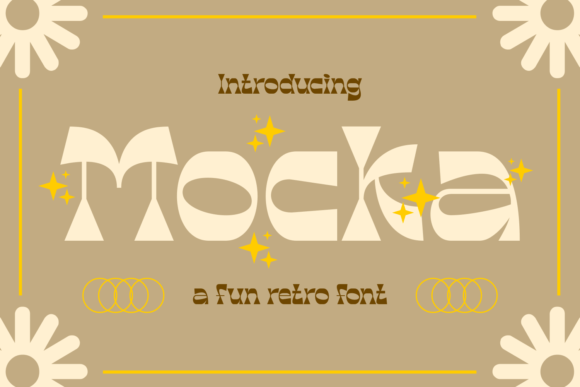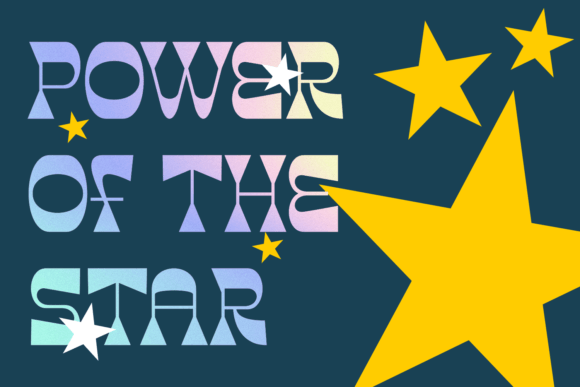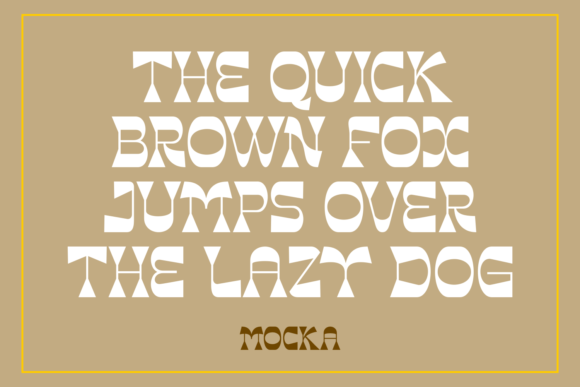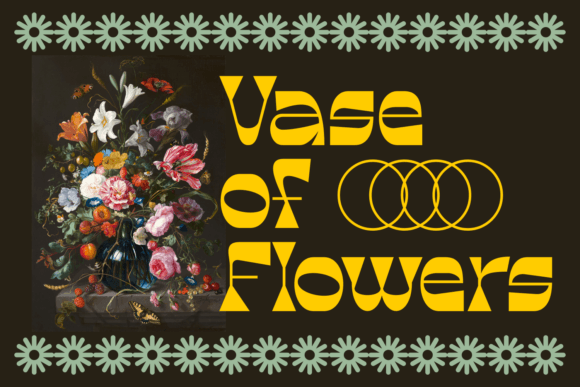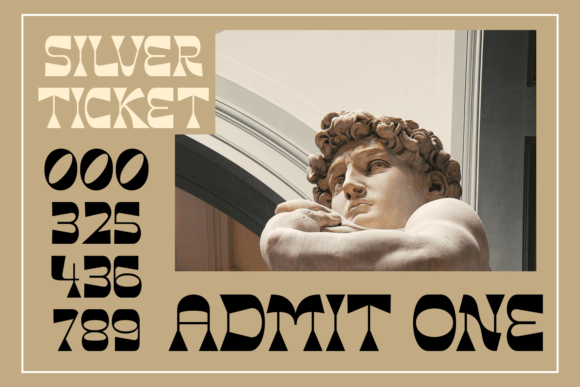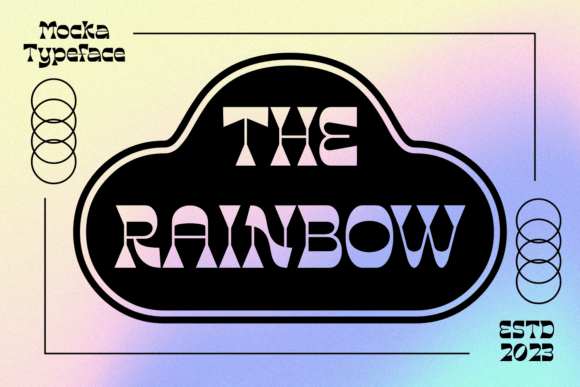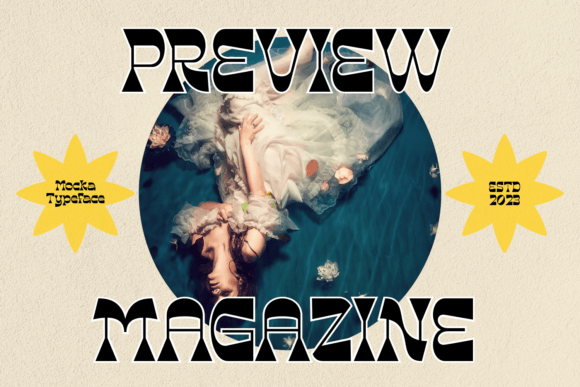
About Mocka
Mocka is a playful, vintage slab serif font that is perfect for any project that needs a bit of personality and attitude. Its stylish and distinctive letters offer a modern yet retro look, with their slightly rounded edges and quirky details adding a touch of fun. Whether you’re looking for something edgy or lighthearted, this font is sure to bring your text to life.